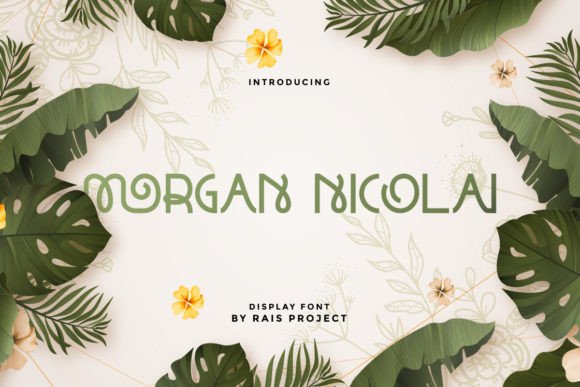
Enter the realm of Morgan Nicolai, a display font that dances with organic lines and a touch of playful quirkiness. Inspired by the untamed beauty of nature, this font captures the essence of unbridled creativity and boundless imagination. With Morgan Nicolai, your designs will embark on an extraordinary adventure, leaving an indelible mark on the digital landscape.
Unleash a world of possibilities with Morgan Nicolai's versatility. Its eclectic charm seamlessly complements branding, packaging, and designs yearning for a spark of uniqueness. Let your creations bloom with a touch of the unexpected, as this font weaves its magic, transforming ordinary into extraordinary.
Morgan Nicolai invites you to embrace the playful side of design. Its irregular lines and handmade quality whisper of whimsical adventures, while its collection of delightful glyphs and swashes awaits your creative touch. With Morgan Nicolai, every project becomes a captivating journey, brimming with personality and a touch of the wild.
Step into the enchanting embrace of Morgan Nicolai and let your designs take flight. This font is not merely a collection of letters; it is a gateway to a realm of unbound creativity, where your imagination knows no limits. Download Morgan Nicolai today and embark on a typographical voyage that will leave you spellbound.